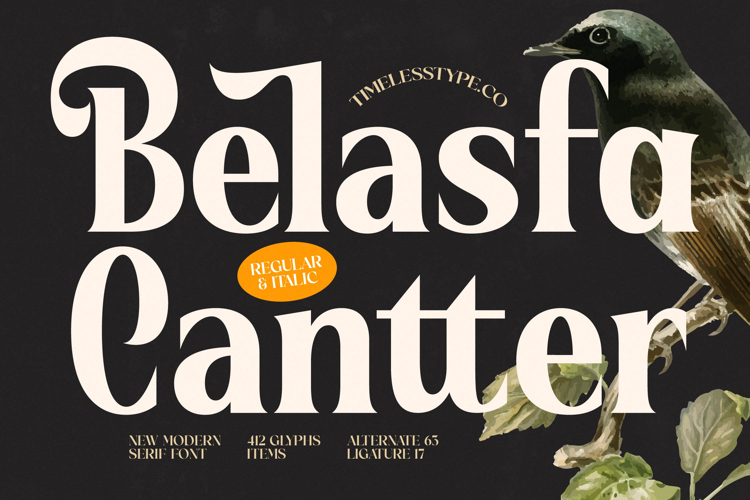
Belasfa Cantter - Modern Serif Font
Elevate your designs with the unparalleled sophistication of Belasfa Cantter - Modern Serif Font. This exquisite typeface masterfully blends classic serif elegance with a contemporary aesthetic, featuring delicate high-contrast strokes and gracefully flowing curves. Its refined structure exudes a sense of luxurious distinction, making it an ideal choice for projects demanding both a modern edge and a touch of timeless charm.
Unlock boundless creative possibilities with Belasfa Cantter - Modern Serif Font’s comprehensive character set. Equipped with 412 glyphs, 65 alternate characters, and 17 ligatures, this font offers exceptional versatility and artistic flexibility. Designers can effortlessly craft unique and compelling headlines, logos, and body text that truly stand out, ensuring every design carries a bespoke and polished feel.
Discover the perfect typeface for your most prestigious projects; Belasfa Cantter - Modern Serif Font is impeccably suited for luxury branding, high-end packaging, and sophisticated editorial layouts. It’s the ultimate choice for fashion magazines, elegant invitations, and corporate identities that aim to convey exclusivity and a strong visual impact. This font is perfect for any application requiring a touch of refined glamour and professional appeal.